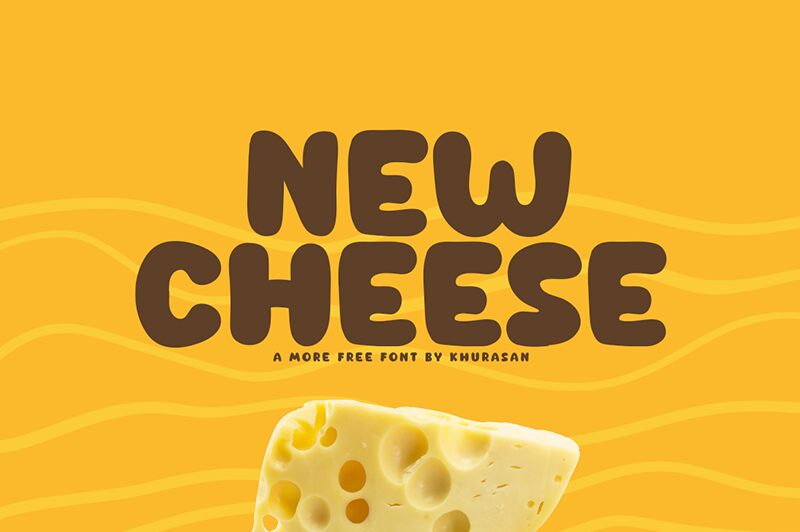
New Cheese
New Cheese, designed by Khurasan, is an extra-bold display font with a playful cartoon style. Its semi-expanded width adds a touch of uniqueness to any project.
With its bold and vibrant look, New Cheese is perfect for children's books, comic strips, animated movies, and graphic designs aimed at capturing attention and creating a fun atmosphere. Let this whimsical font add a burst of personality to your next creative venture!